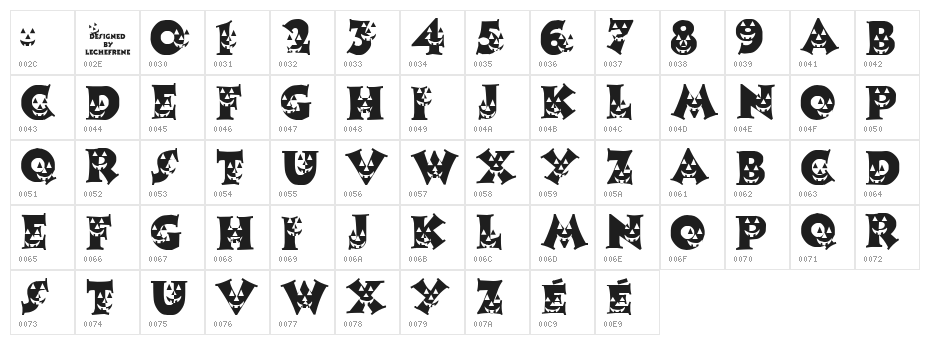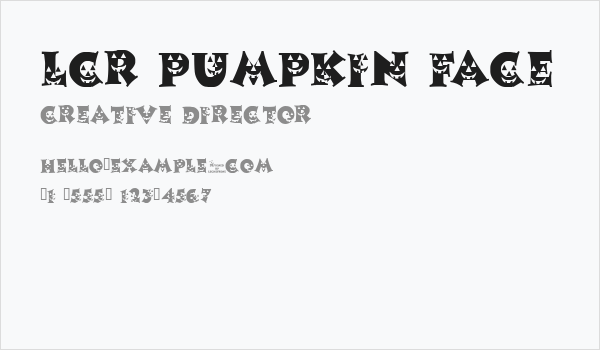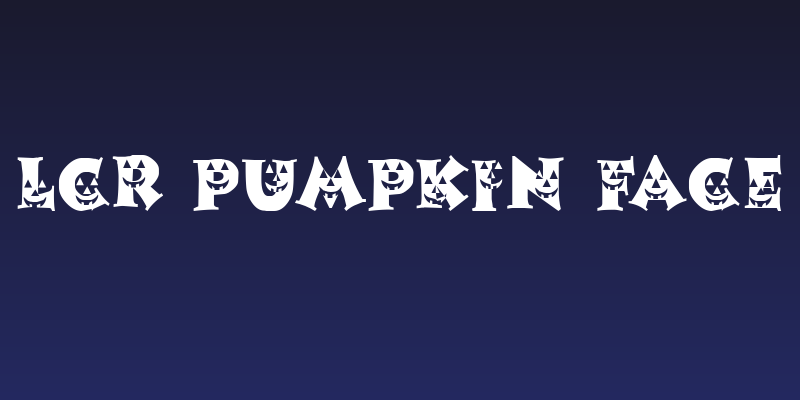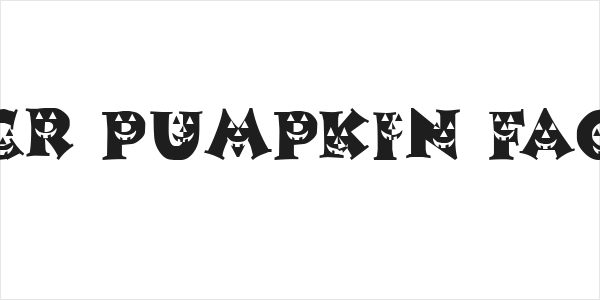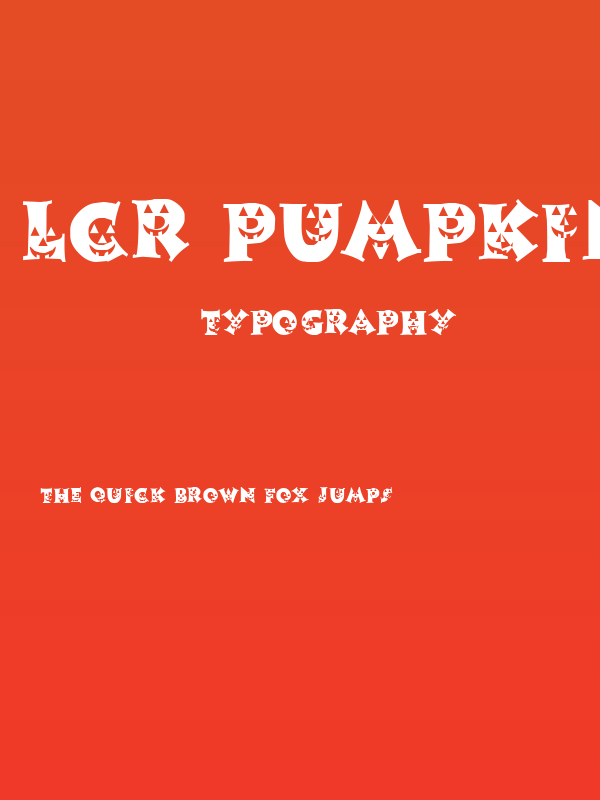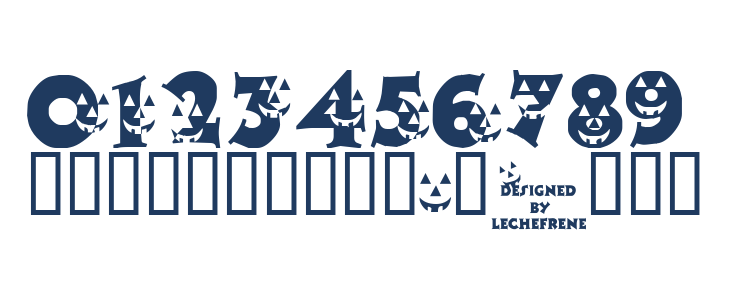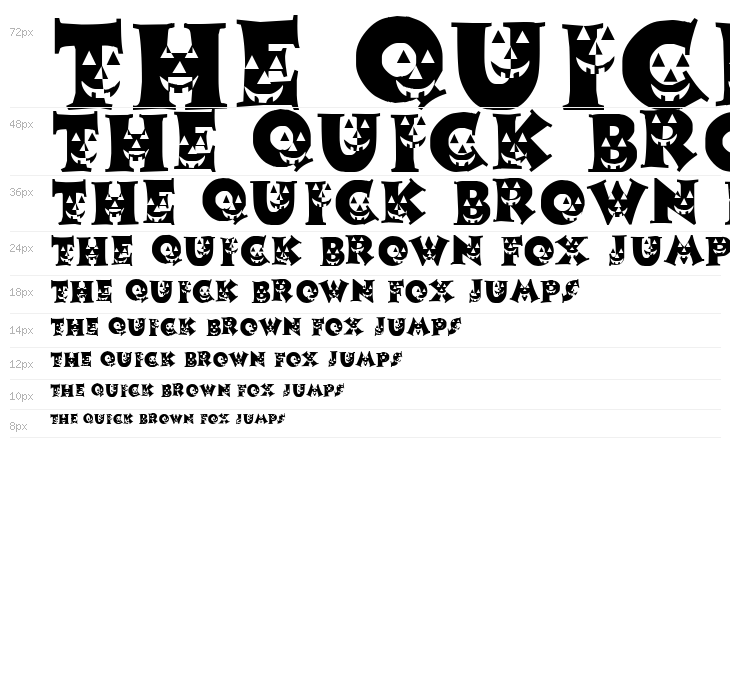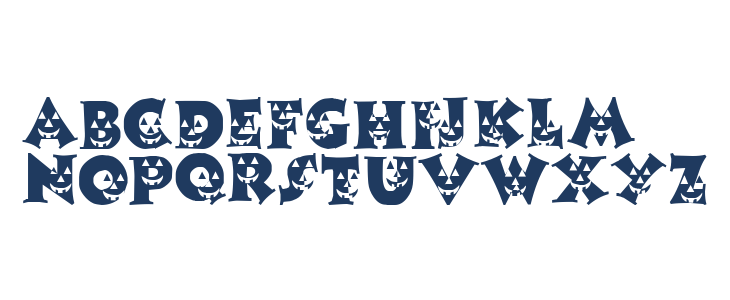
LCR Pumpkin Face Font
LCR Pumpkin Face Description
This font features a playful and spooky design, incorporating elements of Halloween with jack-o'-lantern faces embedded within each character. The bold, angular shapes give it a distinctive and eye-catching appearance, perfect for themed events or creative projects. The uppercase and lowercase letters maintain a consistent style, with numbers and special characters following suit. The unique design elements make it stand out, adding a festive and fun touch to any text.
| Proposed Projects | Ideal for Halloween invitations, party decorations, themed posters, and creative graphic design projects. |